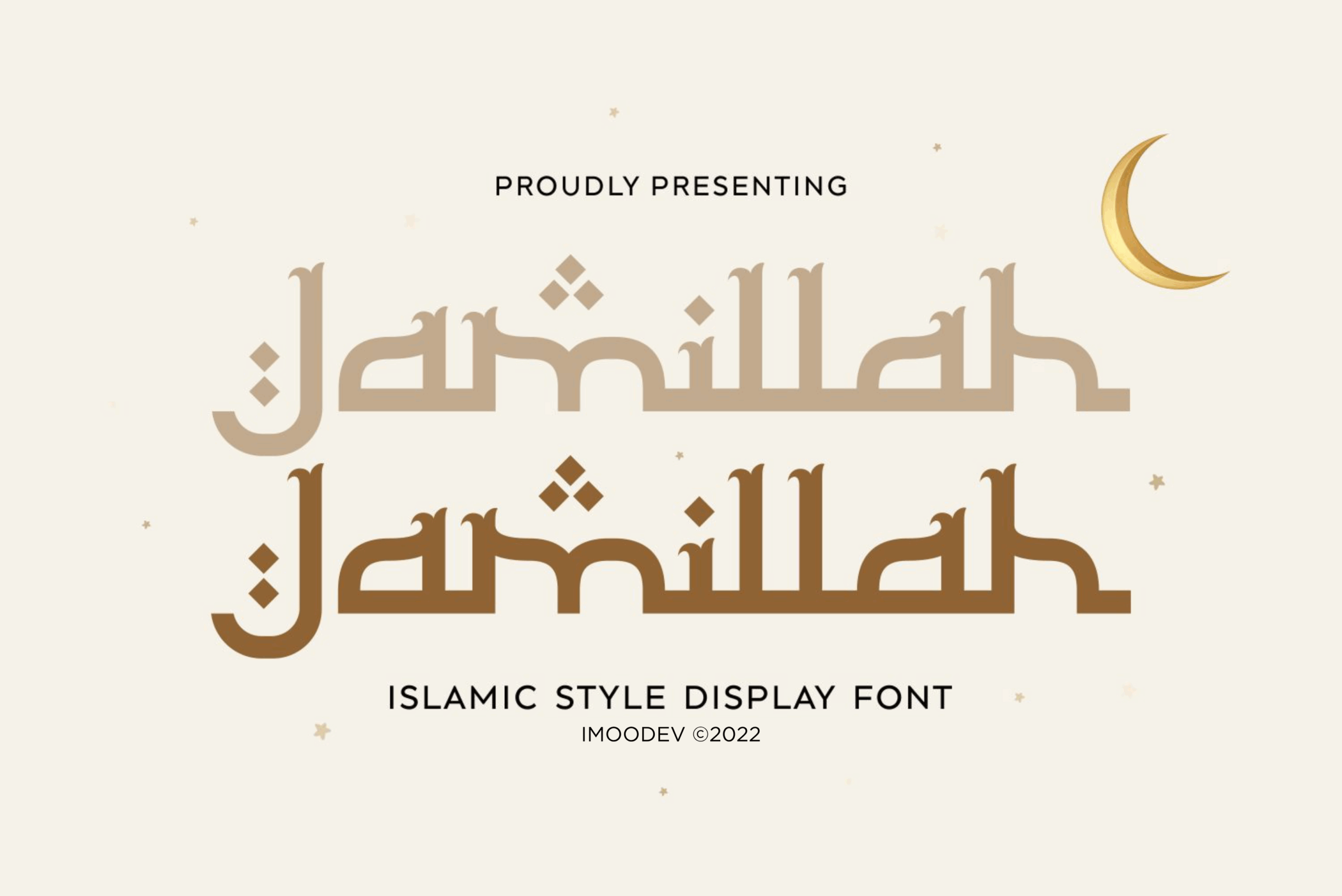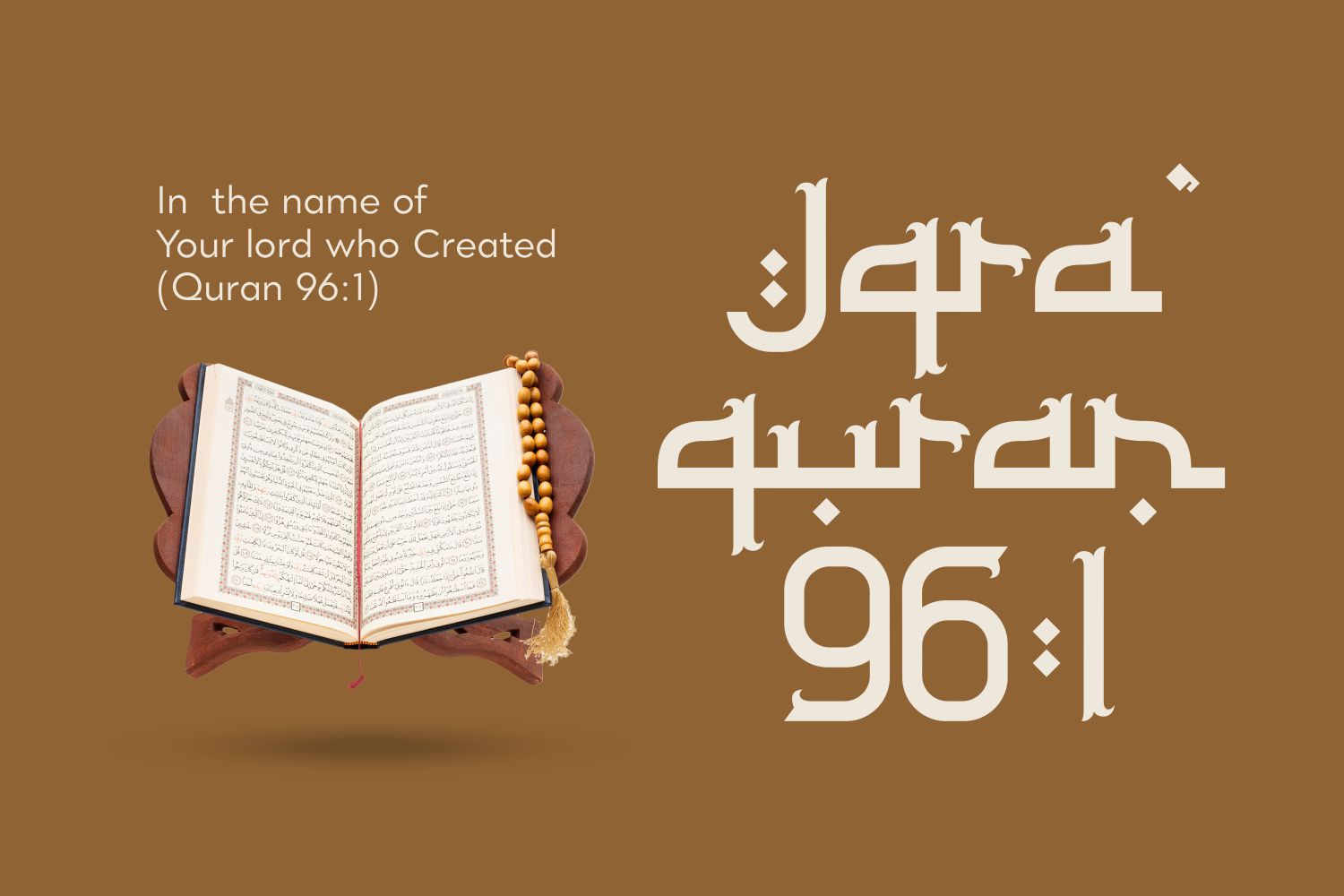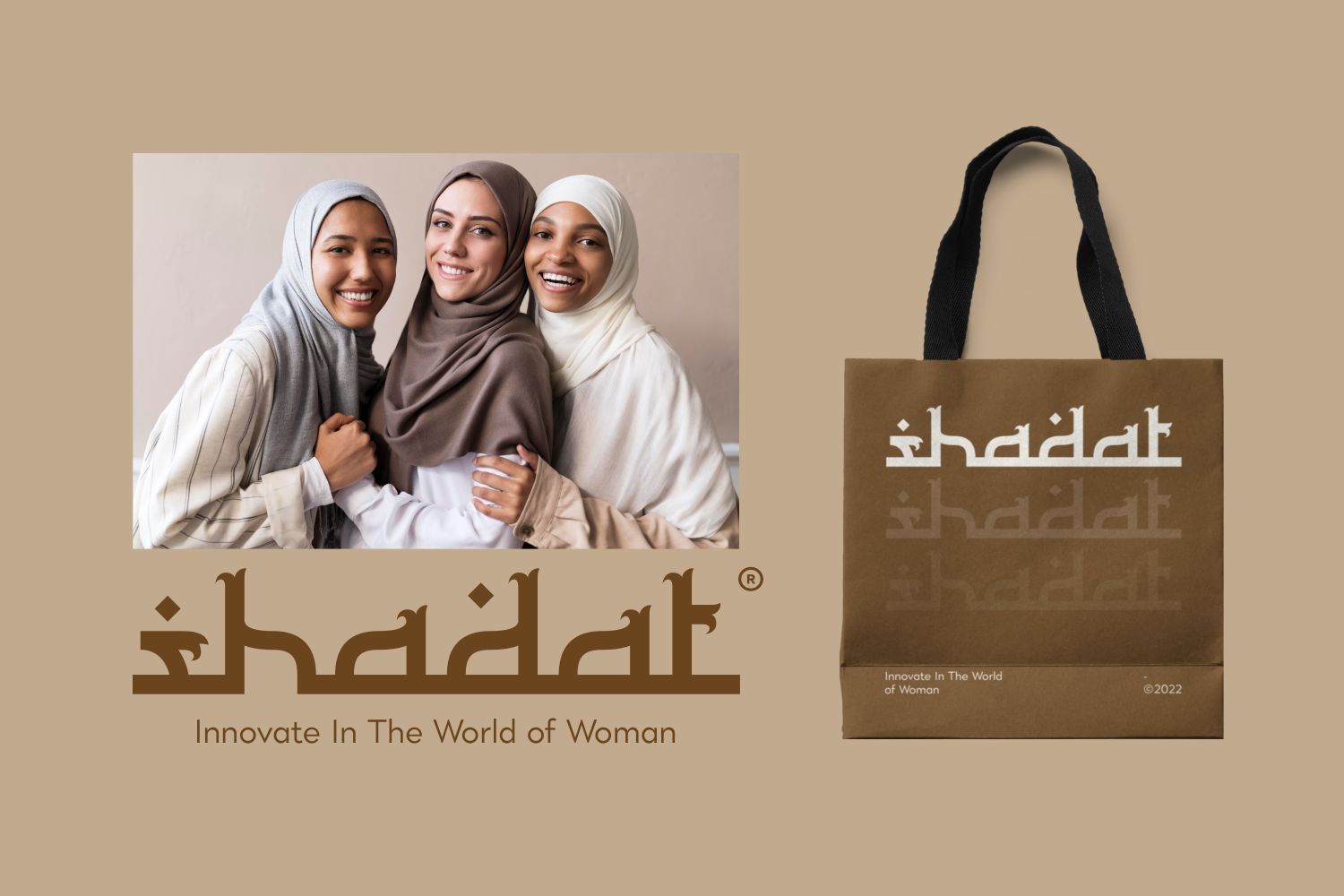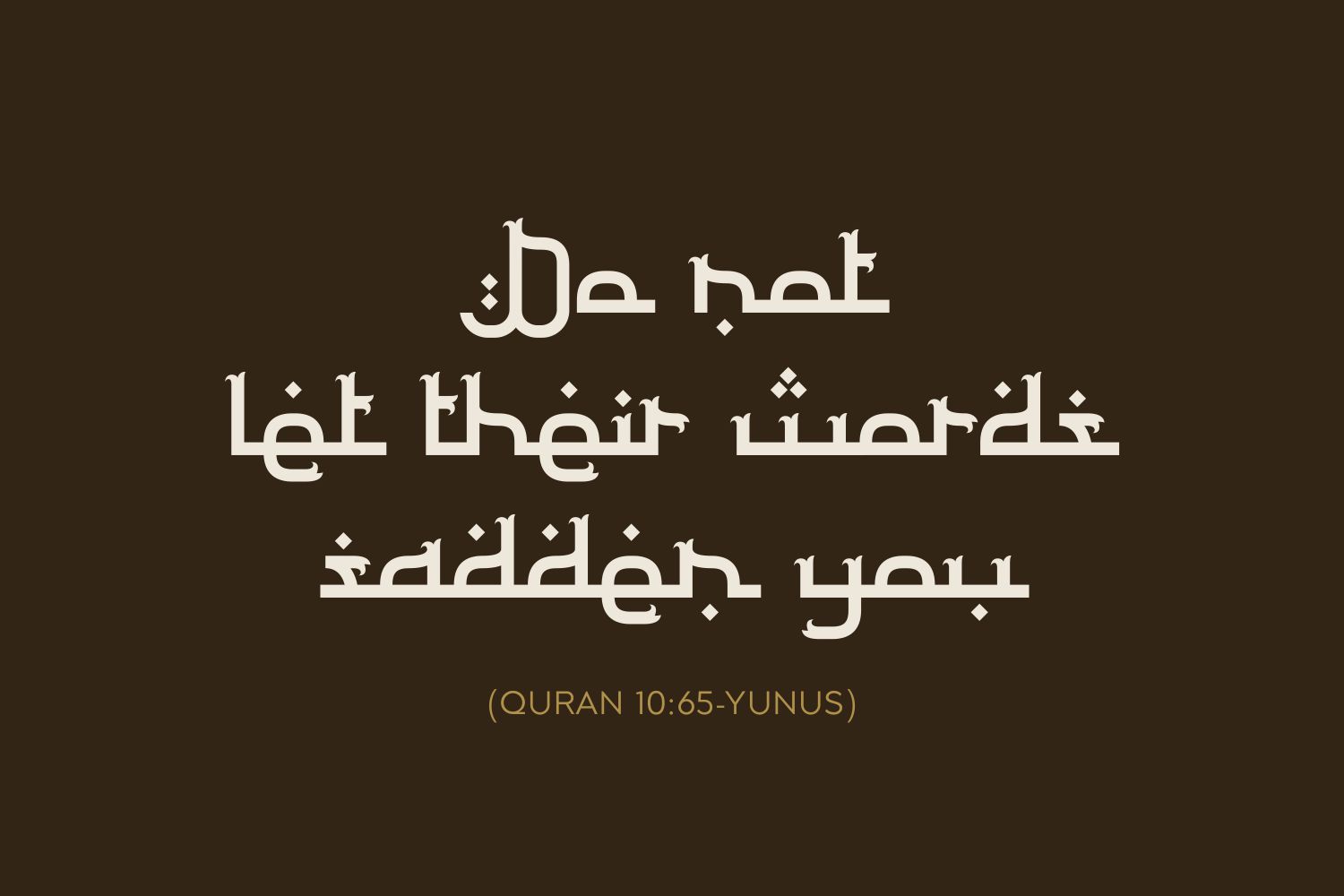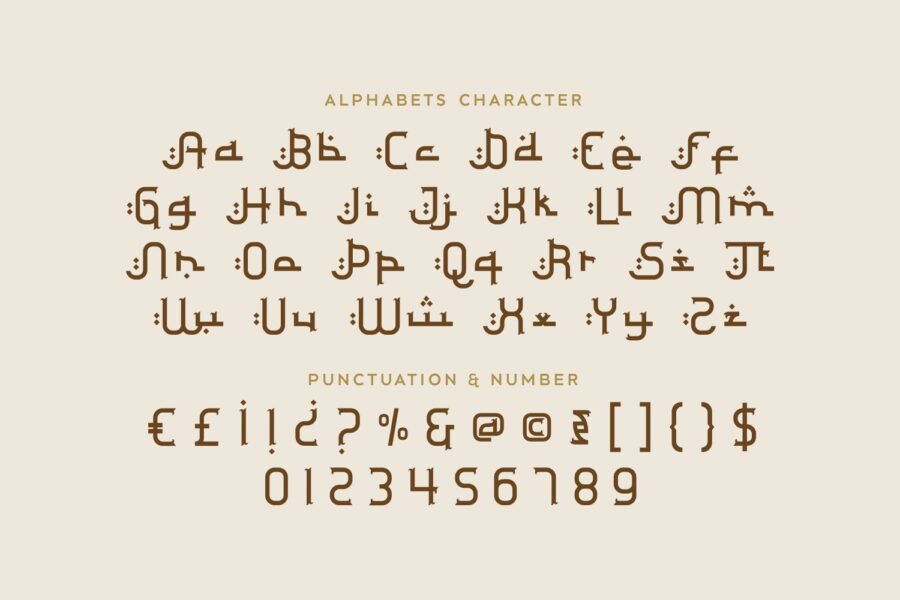
Jamillah is an Islamic style display font that blends modern geometric structure with traditional Arabic-inspired aesthetics. Its unique letterforms are crafted to bring a spiritual and cultural touch to design, making it perfect for religious events, Ramadan promotions, Islamic branding, and editorial works related to Middle Eastern or Islamic themes. The font carries elegance and authenticity, allowing your designs to feel both respectful and visually captivating.
With its complete set of characters, punctuation, and numbers, Jamillah offers versatility for various design needs. From product packaging and apparel to social media posts and book covers, this font ensures your message resonates with cultural depth and artistic beauty. It is a timeless choice for designers looking to combine tradition with contemporary design sensibilities.
Jamillah
Imoodev Studio